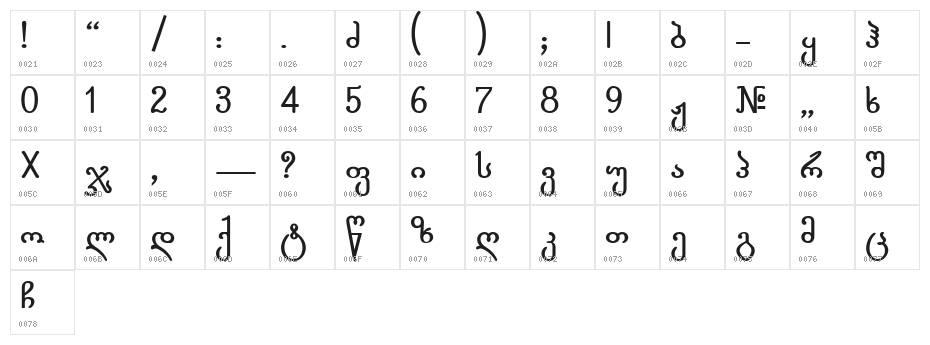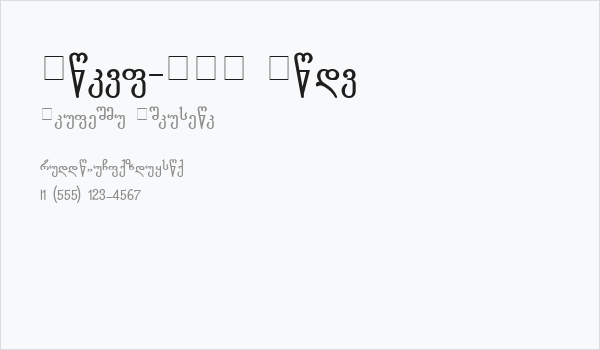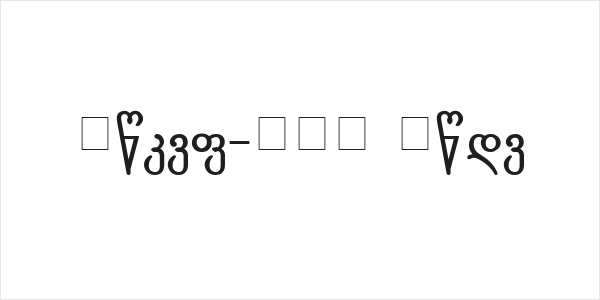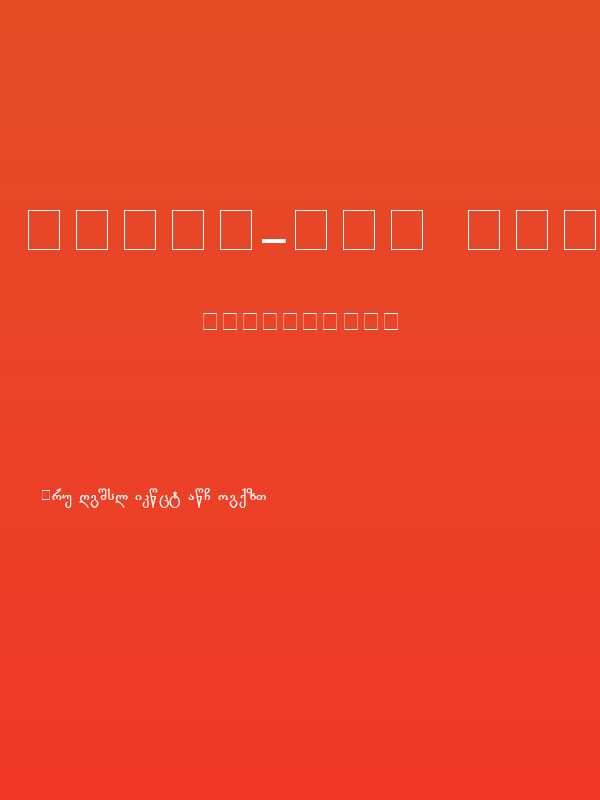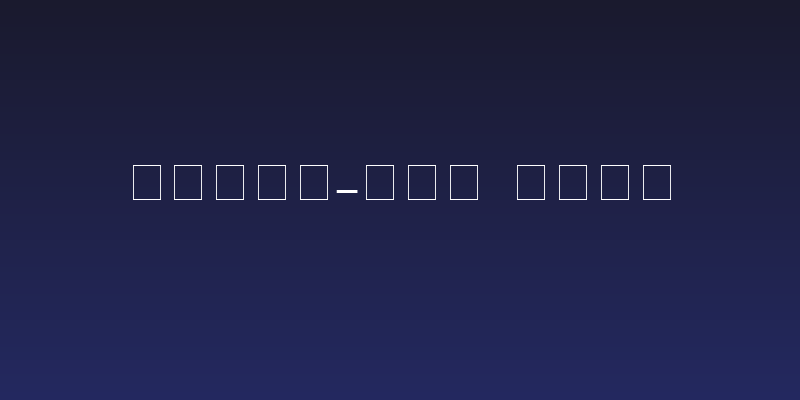
Gorda-ITV Bold Font
Gorda-ITV Bold Description
This font features a unique and artistic design, characterized by its bold and rounded letterforms. The characters exhibit a playful and decorative style, with a distinct flair that makes them stand out. The numerals are equally bold, maintaining the same rounded and smooth aesthetic. The special characters are creatively designed, adding to the font's overall whimsical appearance. This font is well-suited for projects that require a touch of creativity and uniqueness.
| Use Case | Logos, Posters, Creative projects |
| Proposed Projects | Ideal for creative projects such as children's books, playful branding, artistic posters, and unique invitations. |